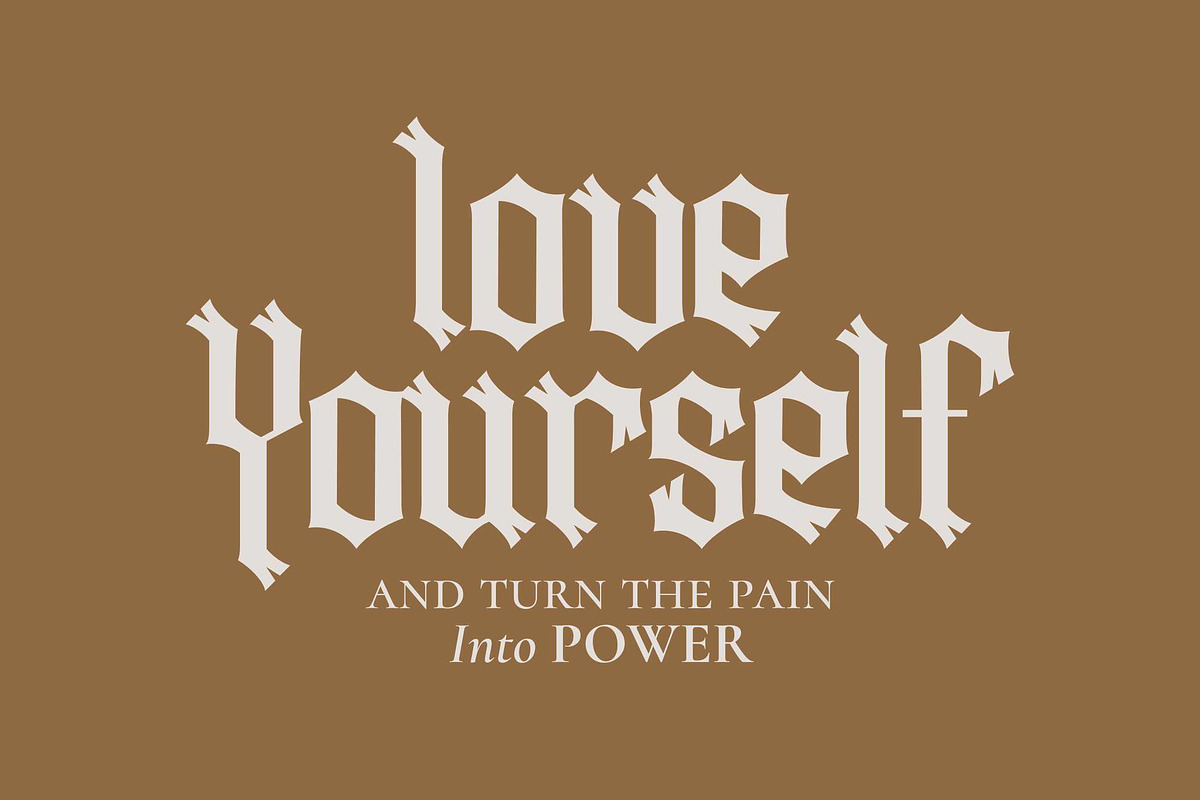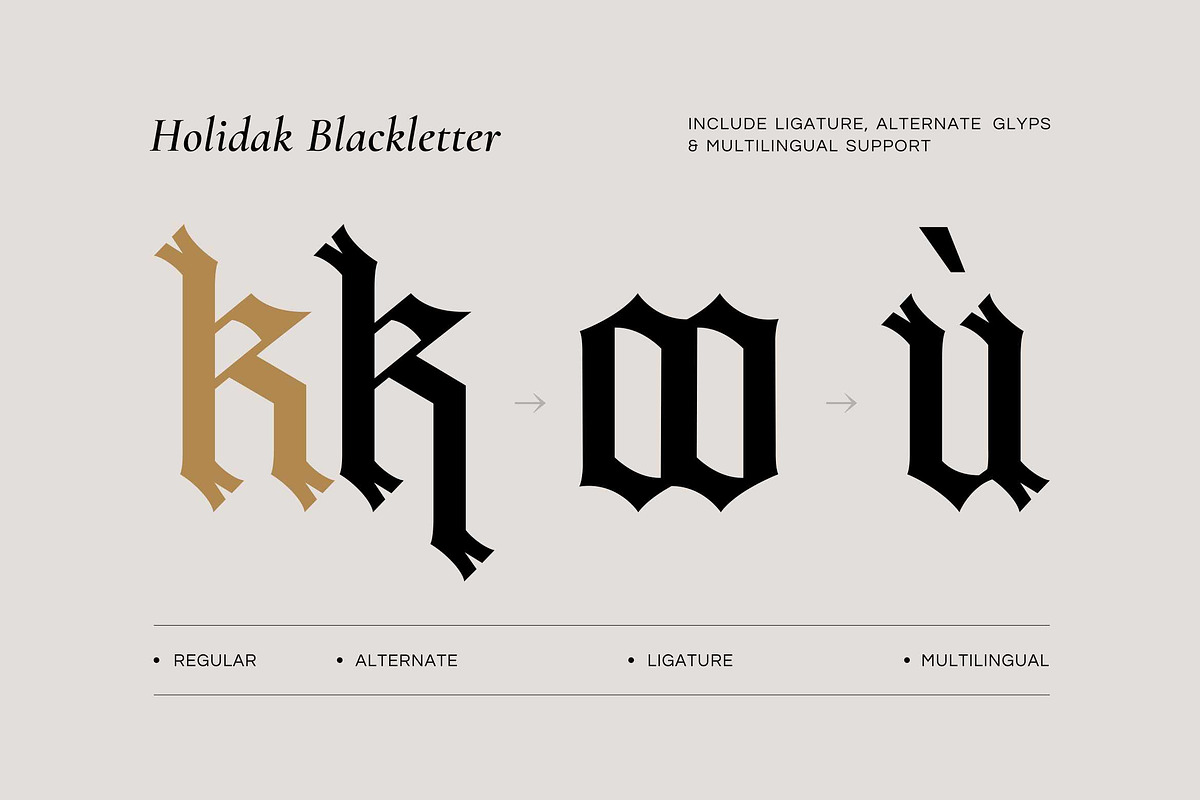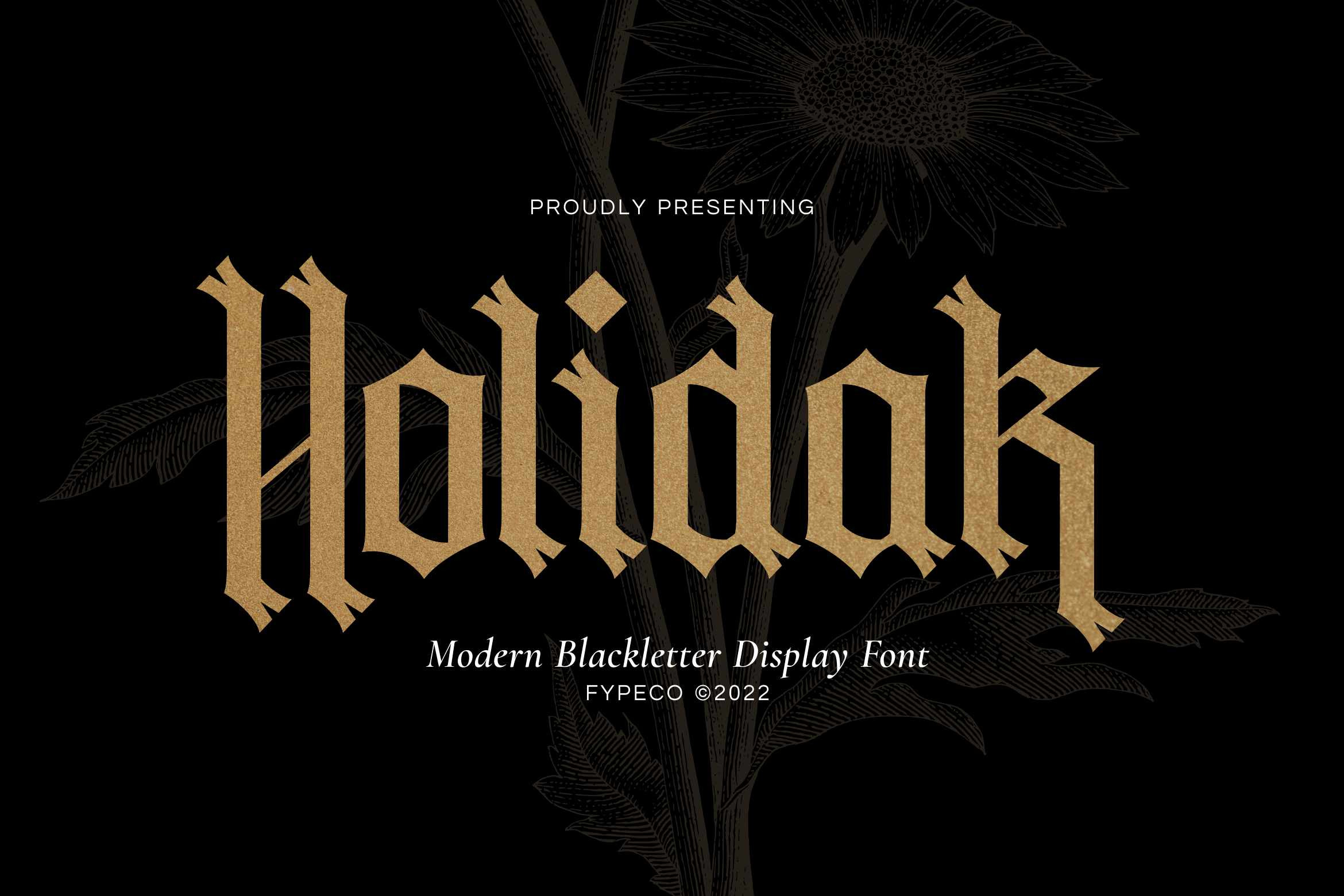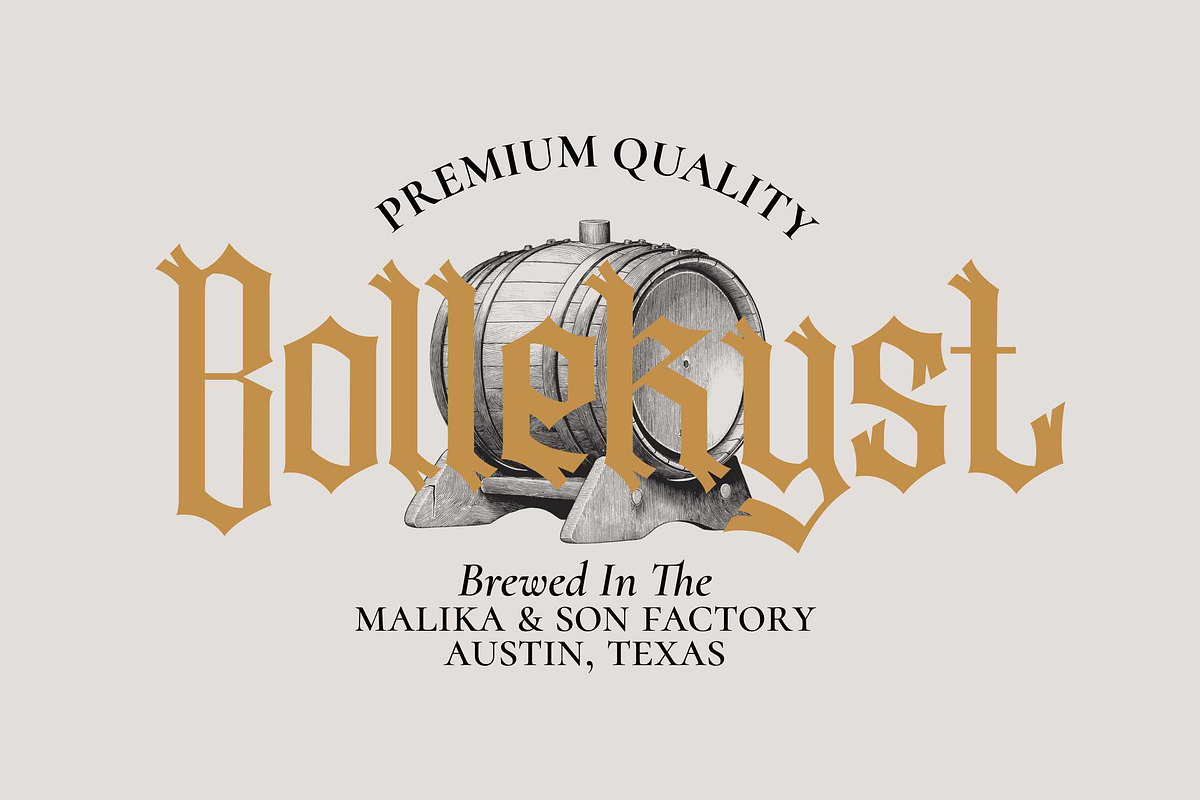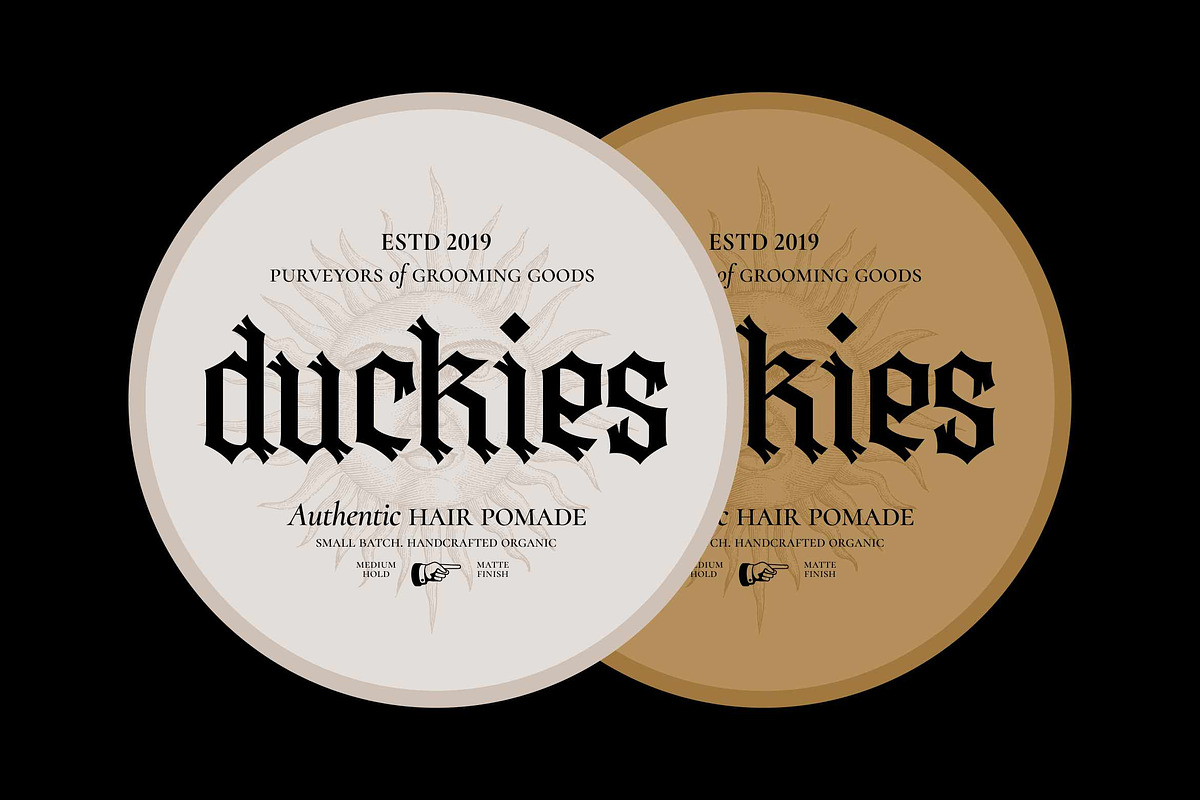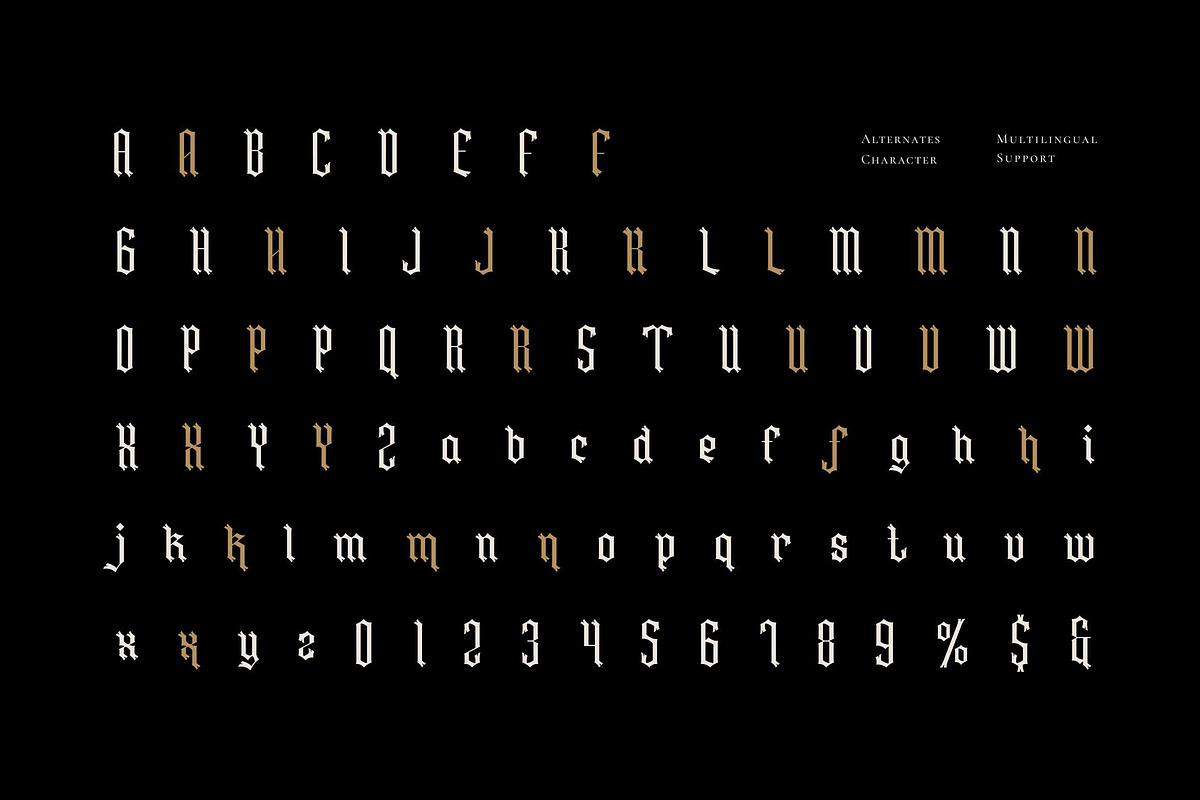
Holidak - Blackletter Display Font
Holidak is blackletter font with modern style. This font is equipped with several opentype features such as Ligatures, Stylistic Set, and multi-language support. Holidak is perfect for use as poster designs, branding, packaging, logos, apparel (t-shirts, jackets, etc.), cards, tattoo, or other design needs.
- Alternatives